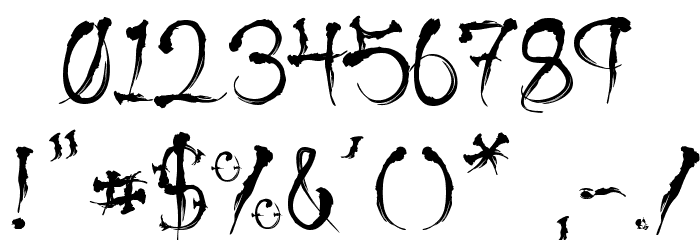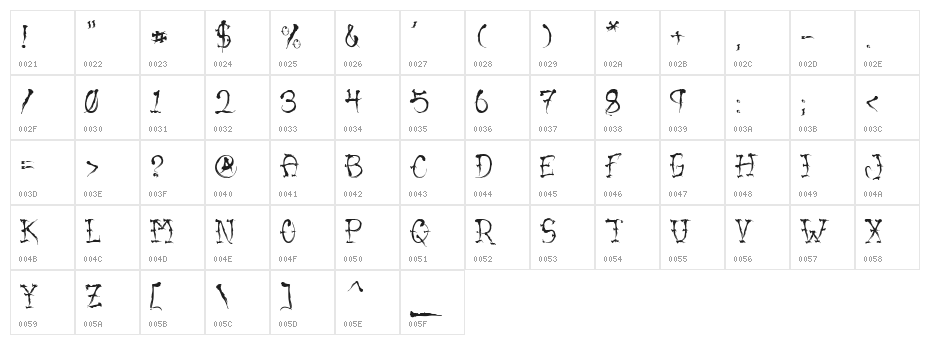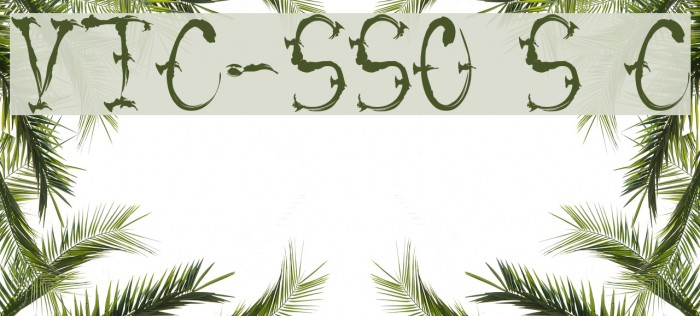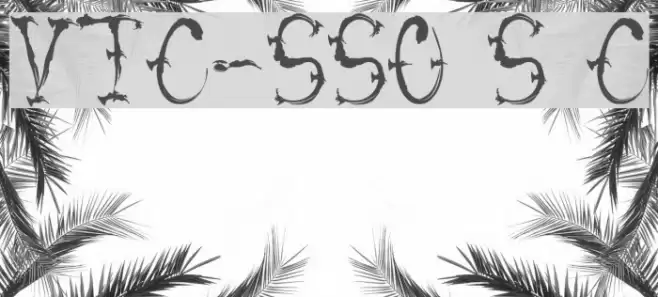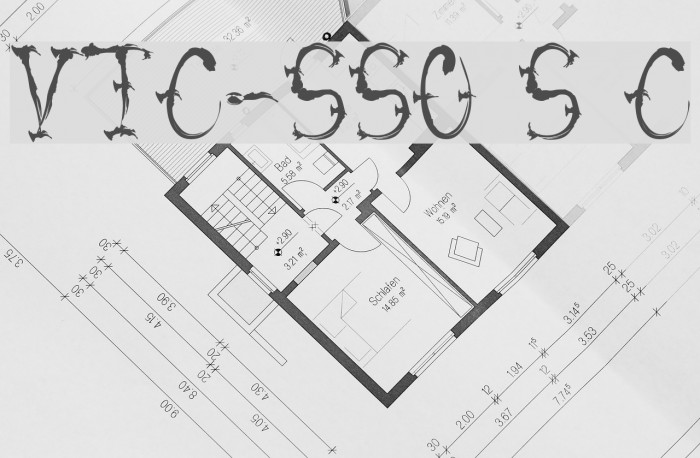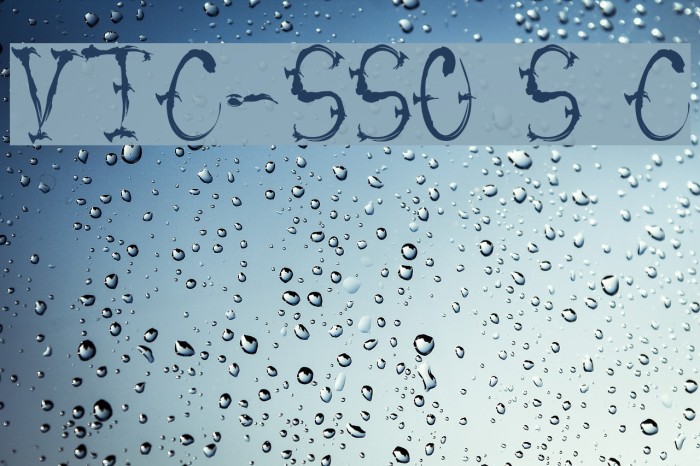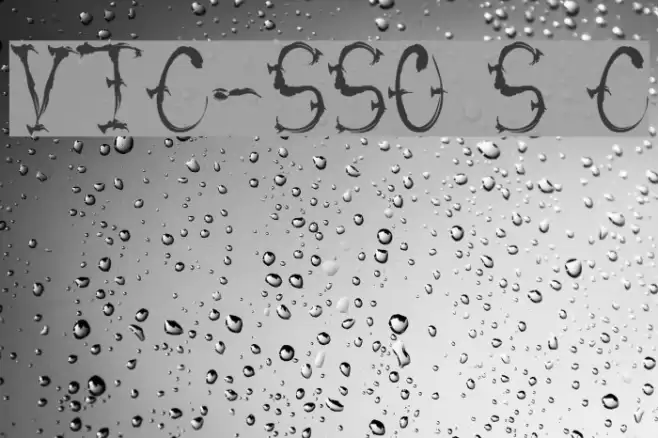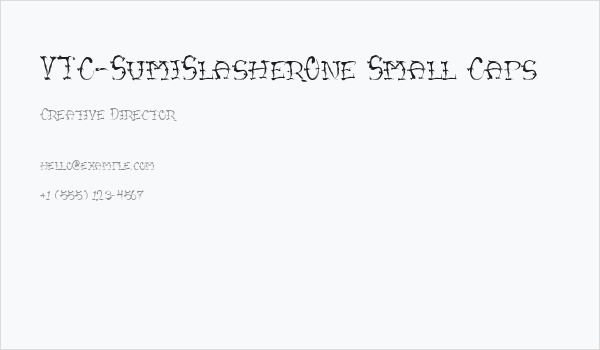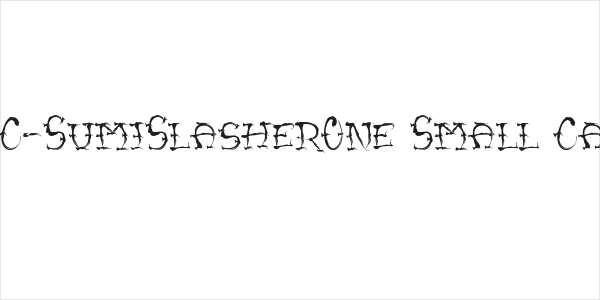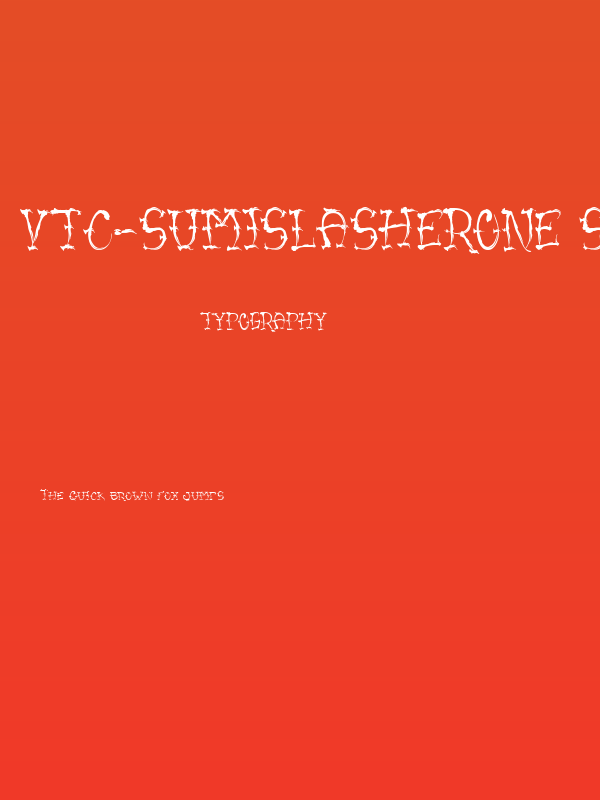
VTC-SumiSlasherOne Small Caps Font
VTC-SumiSlasherOne Small Caps Description
This font features a highly decorative and intricate design, characterized by sharp, thorn-like extensions and a distressed appearance. Each character is uniquely crafted with a sense of movement and aggression, making it stand out with its bold and edgy style. The uppercase and lowercase letters maintain a consistent theme, with jagged edges and a slightly chaotic form that suggests a hand-drawn or organic feel. The numerals and special characters follow the same aesthetic, ensuring a cohesive look across all glyphs. This font is ideal for projects that require a dramatic and eye-catching typeface, such as horror-themed designs, edgy branding, or artistic posters.
| Use Case | Logos, Headlines, Artistic Posters |
| Proposed Projects | Perfect for horror-themed designs, edgy branding, artistic posters, and album covers. |